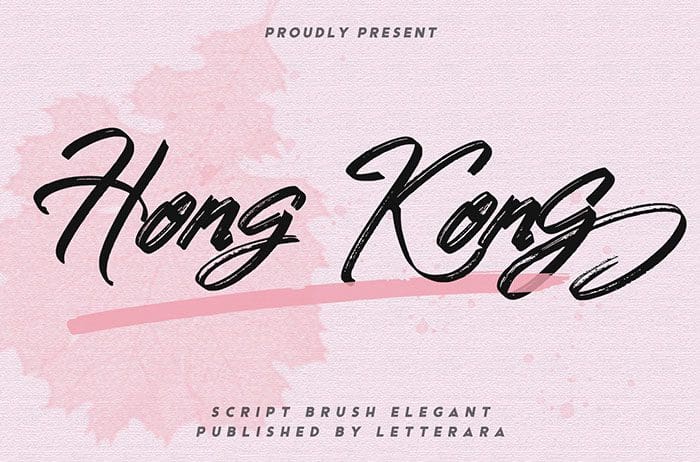
Hong Kong Brush Font
Hong Kong Brush Font is an elegant and masculine font. With extra attention to quick strokes and sharp details, Hong Kong contains uppercase, lowercase, and ligature. Hong Kong is ideal for logos, apparel, wedding, book, t-shirts, hoodies, quotes, youtube, quotes, product packaging, website or anything that needs a typographic turbo-boost and you’ll get a unique swash to accompany the font. Created this font by Thomas Aradea. You can also search more free Fonts. Thanks.